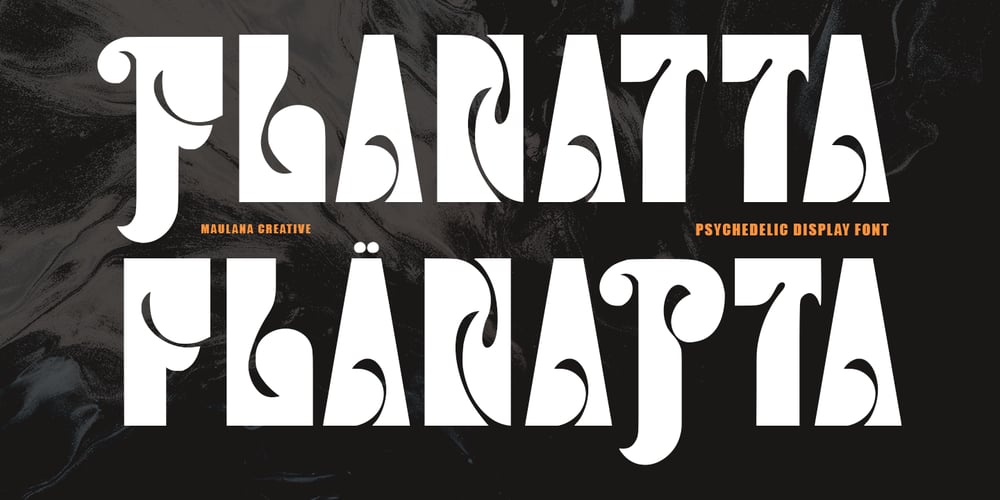
MC Flanatta Font Family was designed by Gilang Maulana and published by Maulana Creative. MC Flanatta contains 1 styles and family package options. Flanatta psychedelic display font is a Hand-lettered font inspired by the vintage 70’s sign board, music, shop and movies. Flanatta includes opentype features Alternates. It support multilingual language. This font is good for logo design, Movie Titles, Books Titles and any awesome project you create. Make a stunning work with Flanatta psychedelic display font.Cheers,Maulana Creative